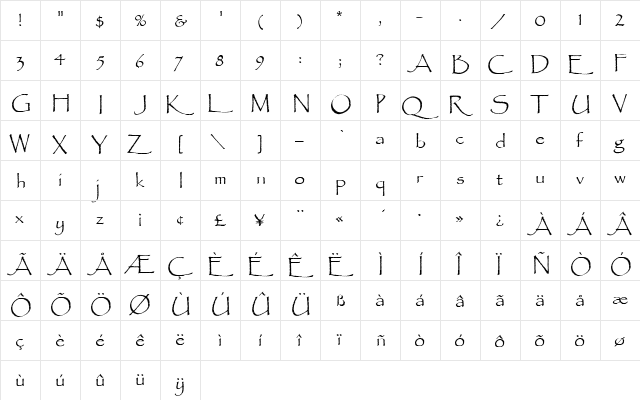
PapyrusEF Regular
Design Context for PapyrusEF Typeface
PapyrusEF is a composed and adaptable typeface that performs quietly and consistently across a wide range of design contexts.